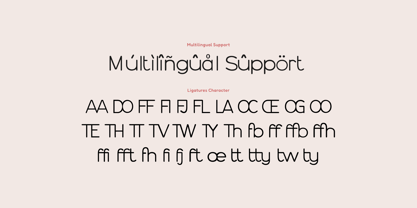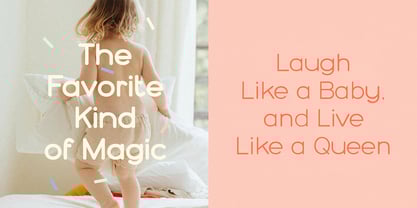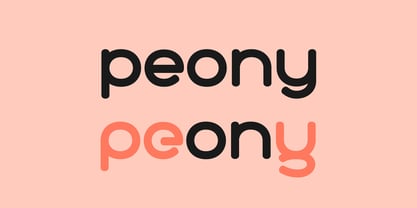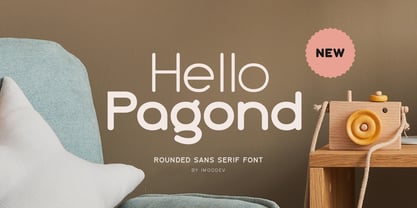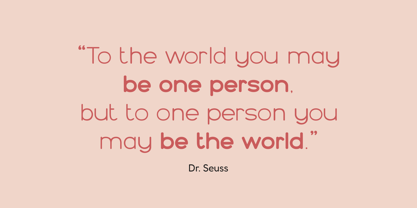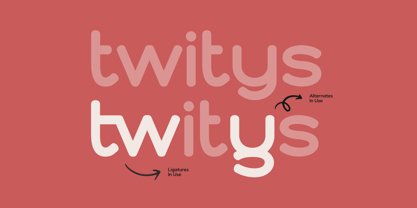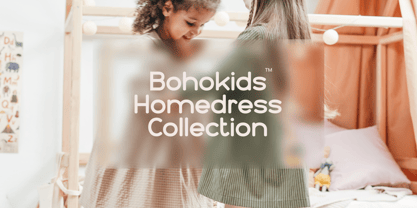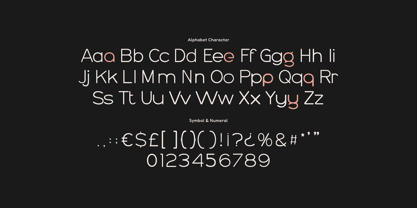
Hello Pagon
by Imoodev
The Hello Pagon Font Family was designed by Aulia Savira Putri and published by Imoodev. Hello Pagon contains 2 styles and family package options. More about this family
Hello Pagond is a monolinear rounded sans serif font with perfectly uniform stroke weight and softly curved letterforms. Its letterforms are built on geometric shapes with smooth, rounded edges, giving the typeface a soft and inviting appearance.
Offered in both a clean regular and a slightly heavier bold. The font is minimal, yet playful, making it perfect for kids clothing brands, educational materials, stationery, birthday invitations, baby shower stationery, social media quotes and greeting card messages.